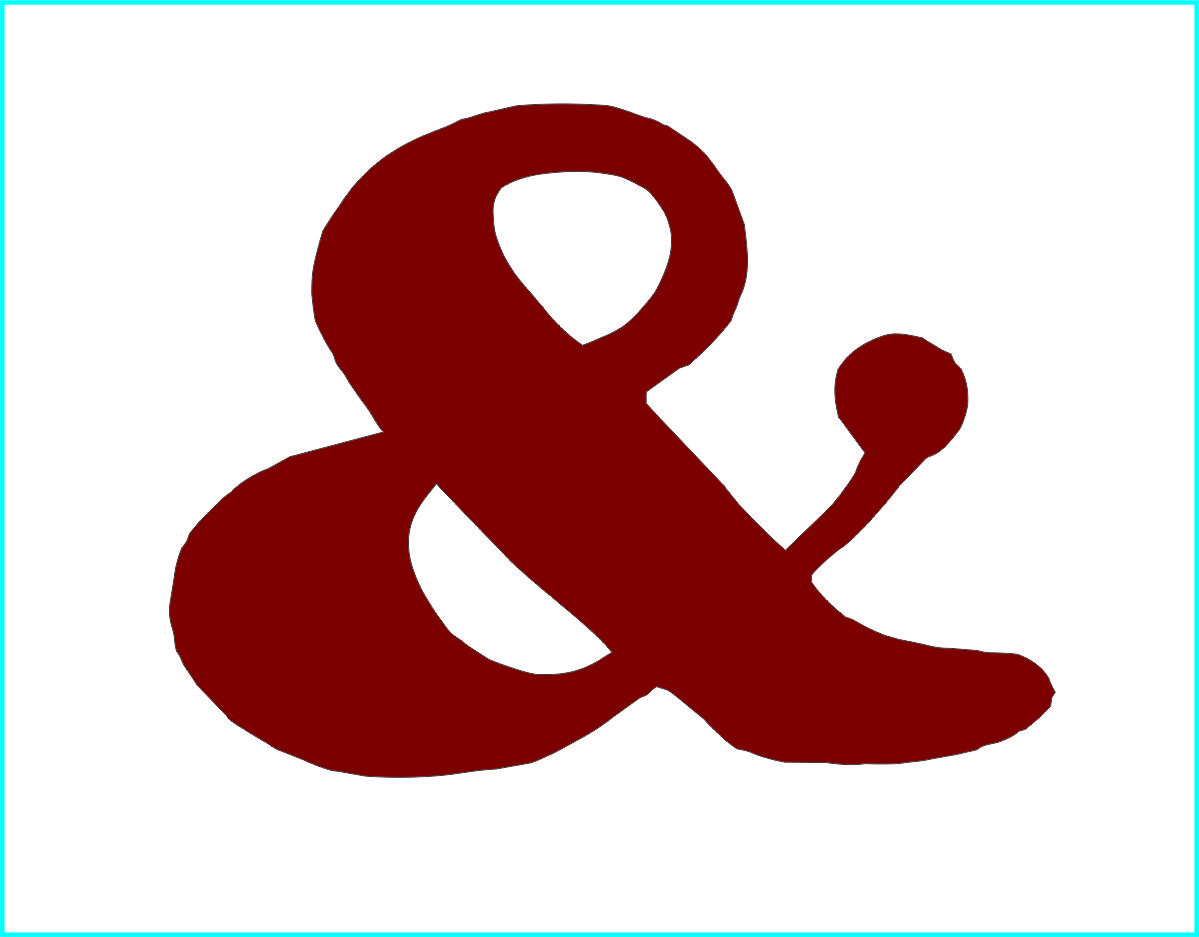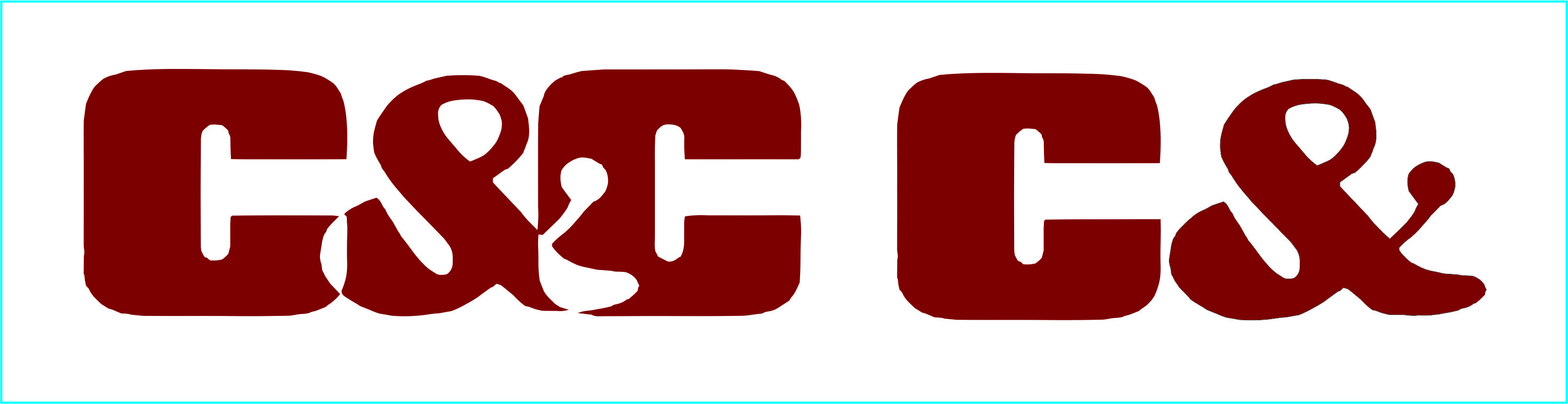
Slightly Odd Font ID request....help!
Can anyone ID or suggest a bold font that has an ampersand with a ball end arm and a rounded swoop leg / foot
like the one included (as removed from the logo)...?
without the cutout...what I'm trying to search with....